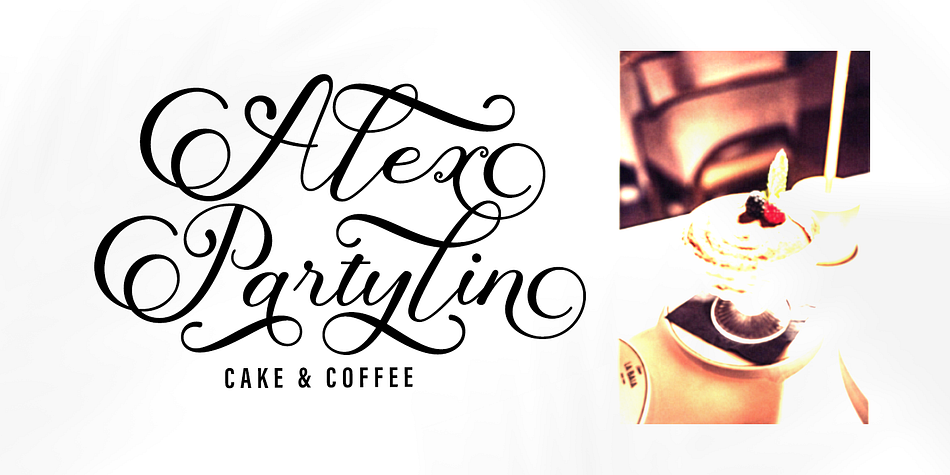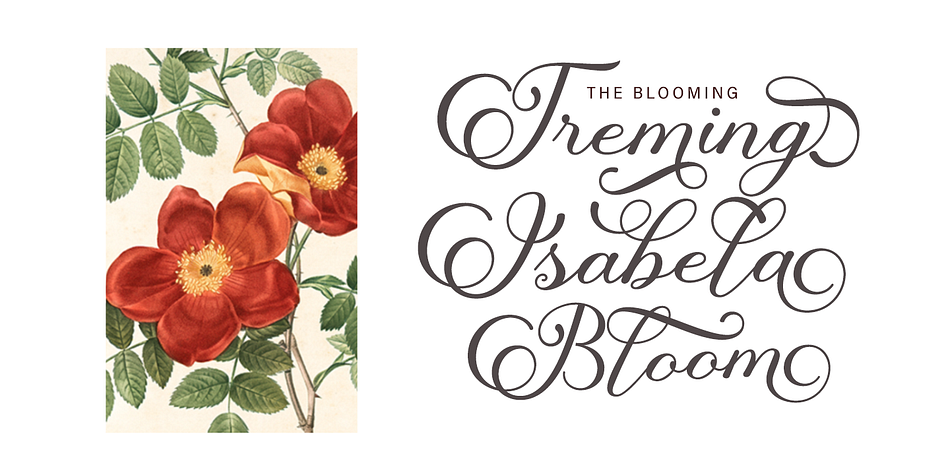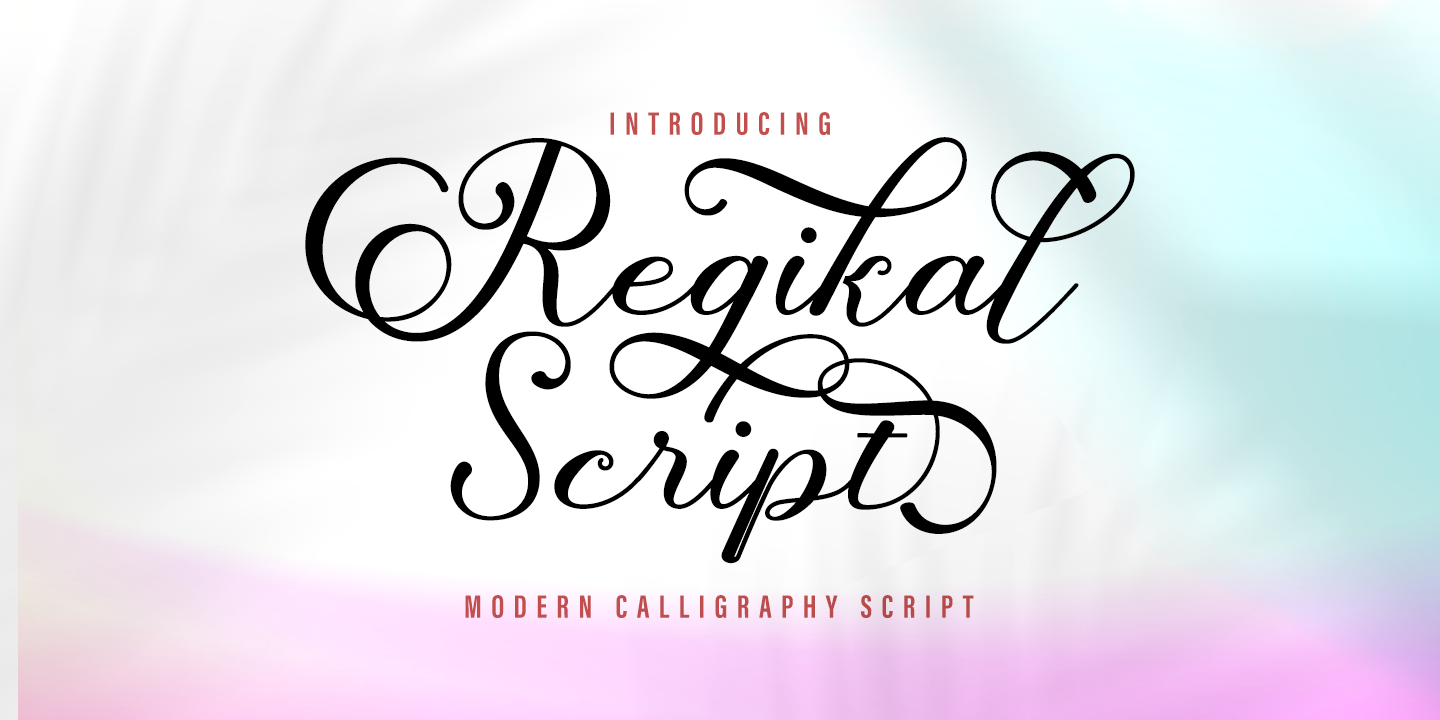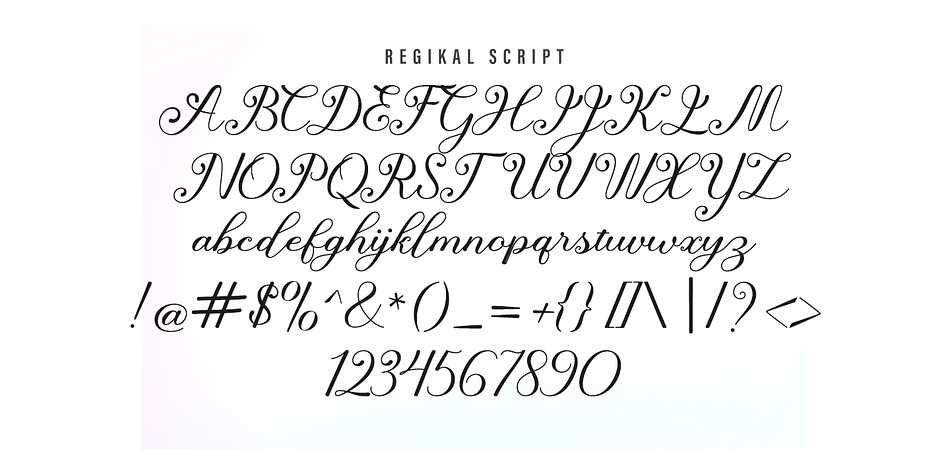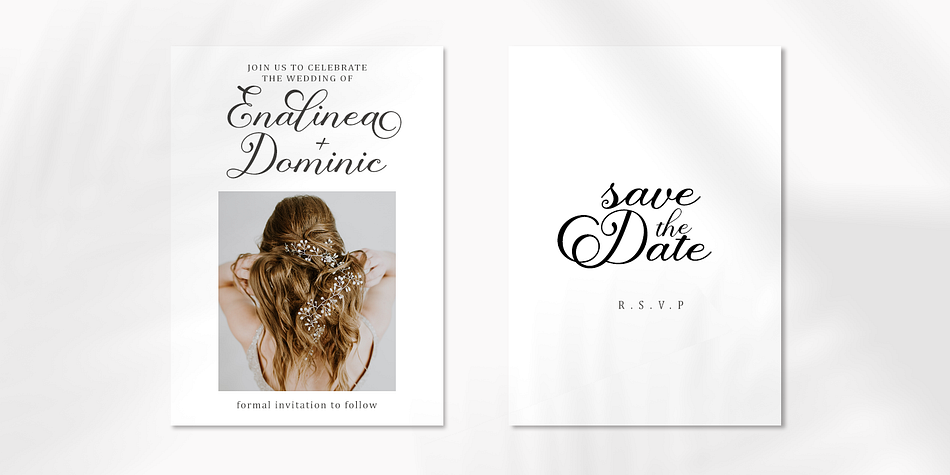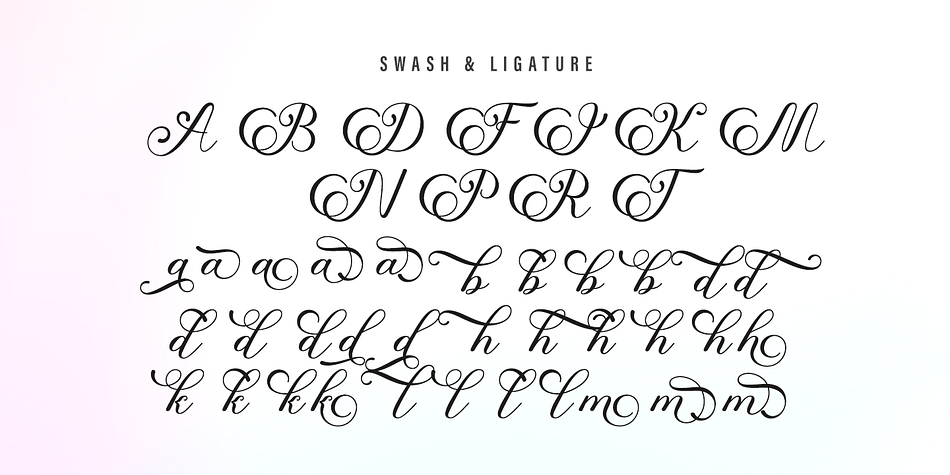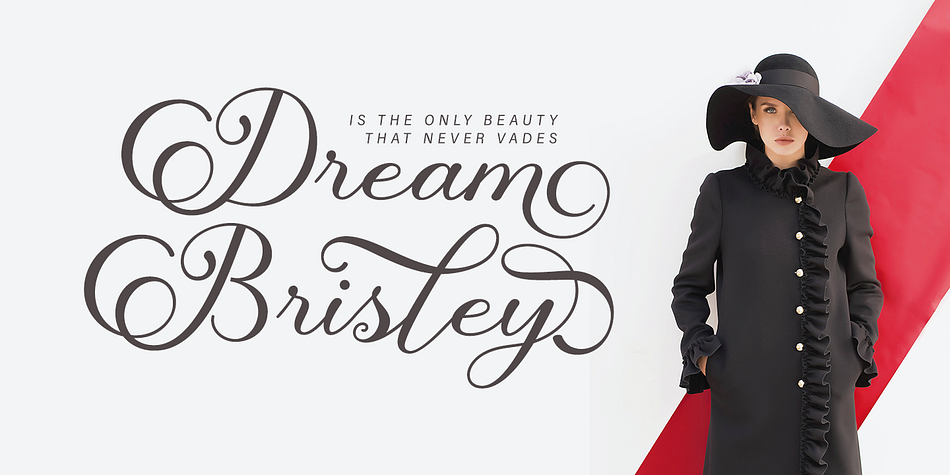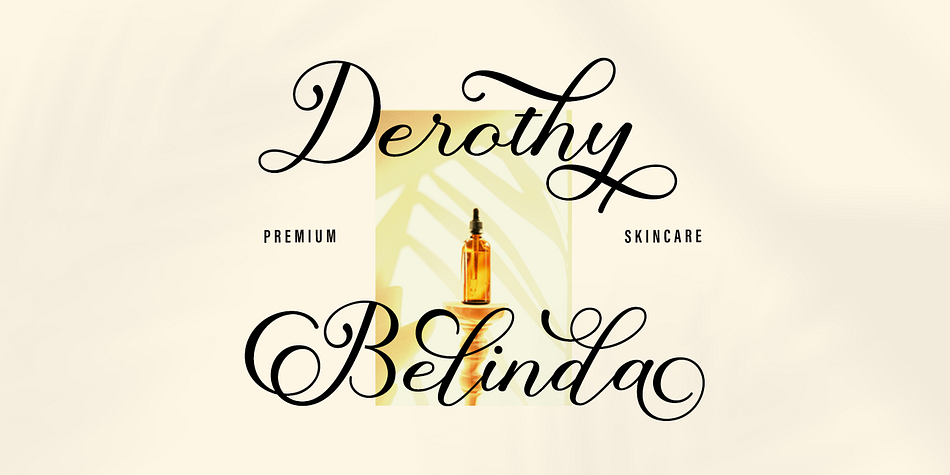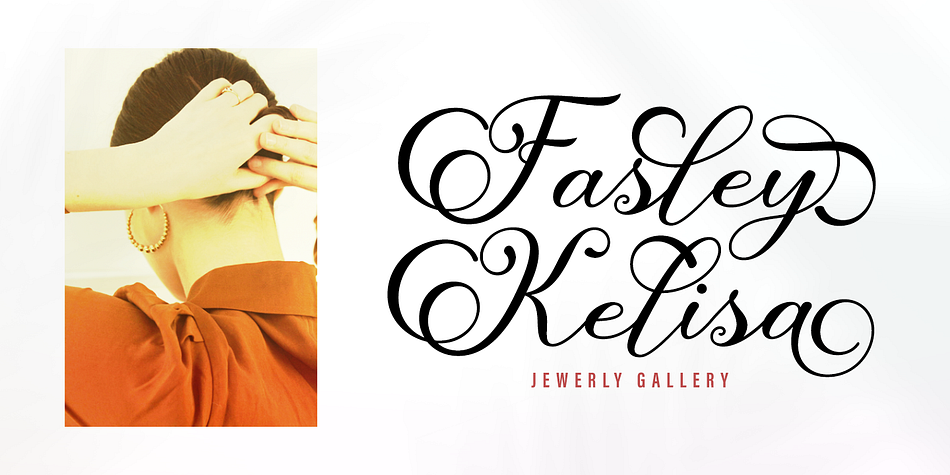
Regikal Script
Regikal Script is a modern calligraphy font family published by Gatype.
Introducing Regikal Script, a new script calligraphy, handwritten typography, modern calligraphy script, which combines classic style with modern style calligraphy, make this a collection in your font library
There are more than 322 glyphs in the font including style sets, Contextual Replacements, etc. OpenType features Stylistic Alternatives, multiple characters that let you mix and match letter pairs to suit your design. To access alternative glyphs, you need a program that supports OpenType features such as Adobe Illustrator CS and Adobe InDesign, Corel Draw, Microsoft Word 2010.